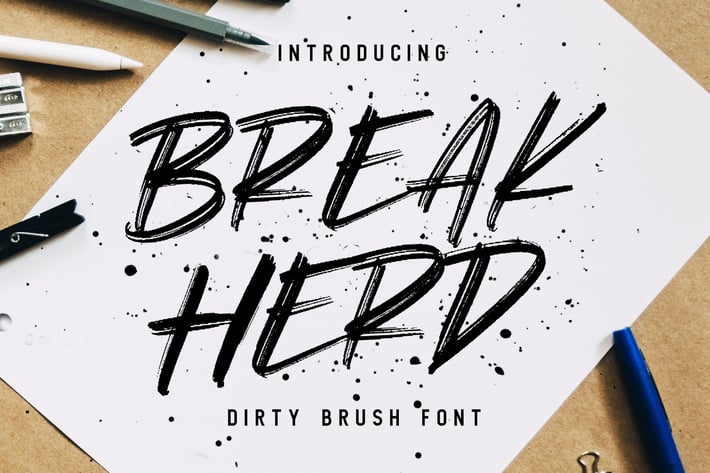
Break Herd - Dirty Brush Font
Break Herd Dirty Brush Font
Introducing of our new product the name is Break Herd Dirty Brush Font. I made this font with my original handwriting using brush marker then making it digital. Break Herd is good for logotype, wedding invitation design, badge, headline, signature, packaging and any more.